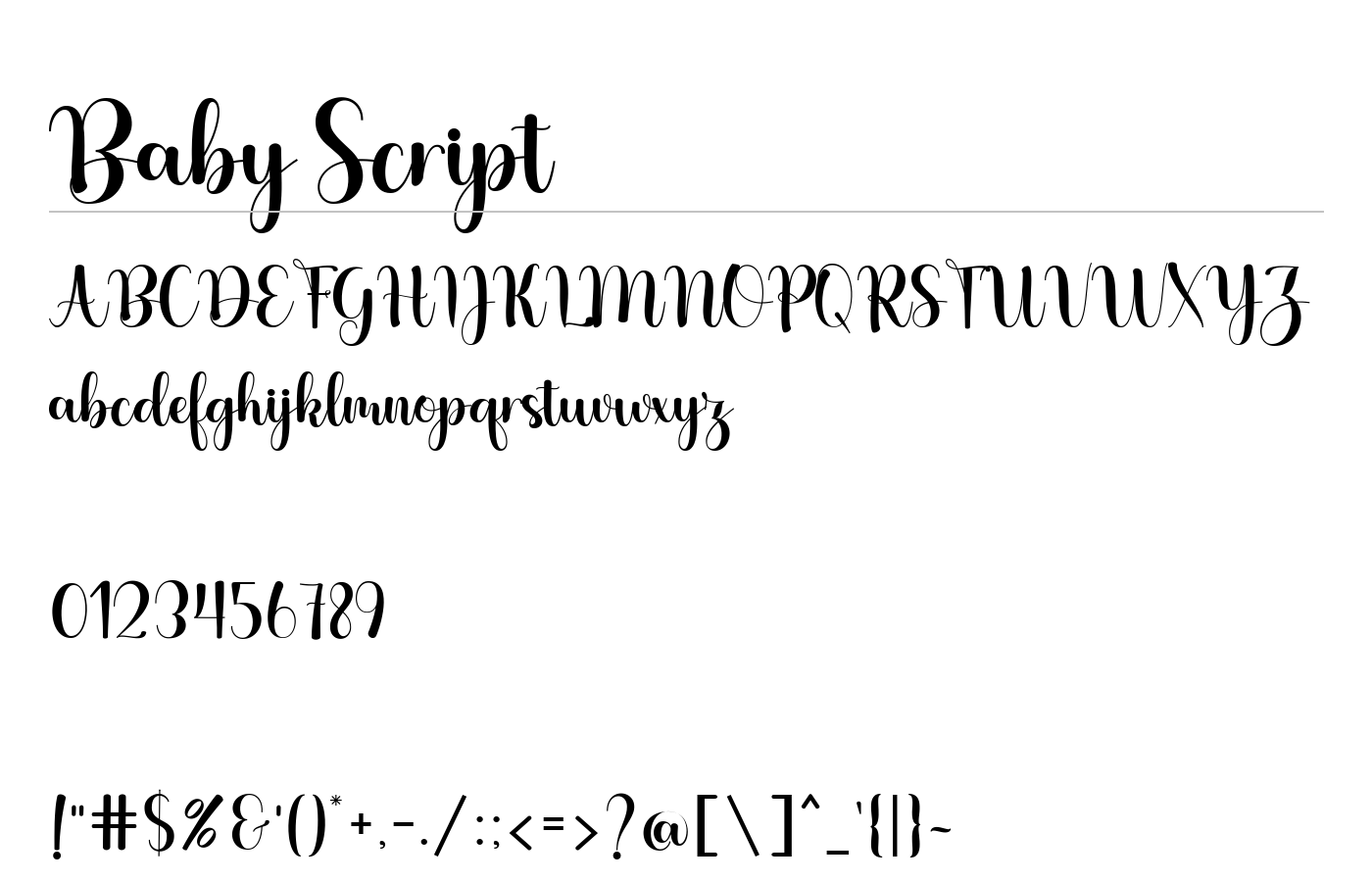
Baby Script Font is a playful and elegant script typeface with a lively, hand-drawn feel. Its smooth, flowing lines and moderate stroke contrast give it a casual yet refined personality, making it perfect for creative branding, invitations, and stylish headlines that need a touch of warmth and charm. This font works especially well for designs seeking a friendly, inviting look with a hint of sophistication.
Baby Script Font
About Baby Script Font
| Font family | Baby Script Font |
| Designer | Nurul Kamal |